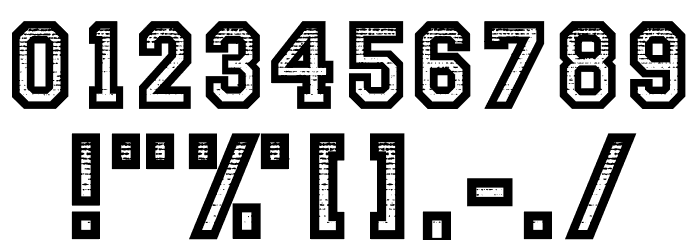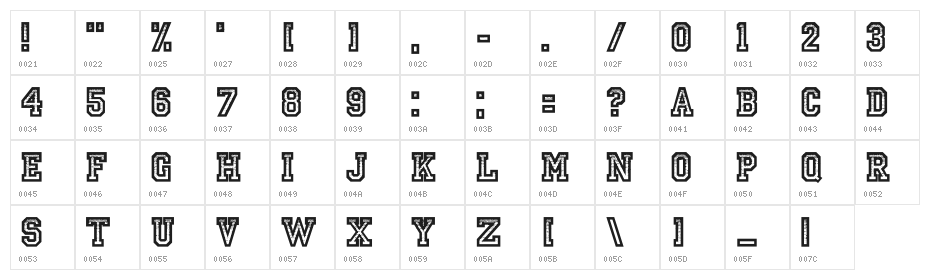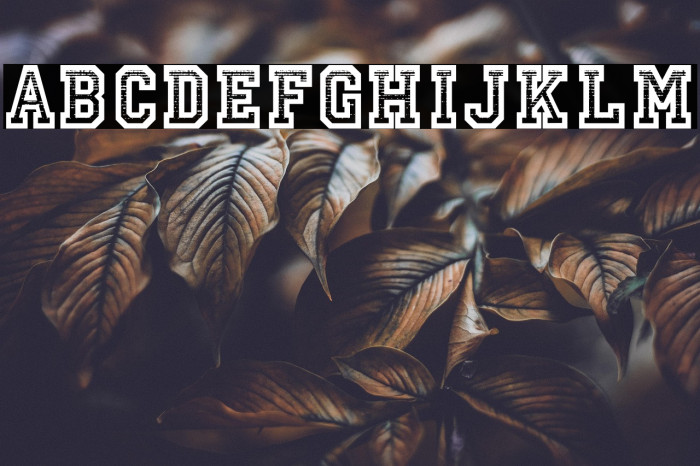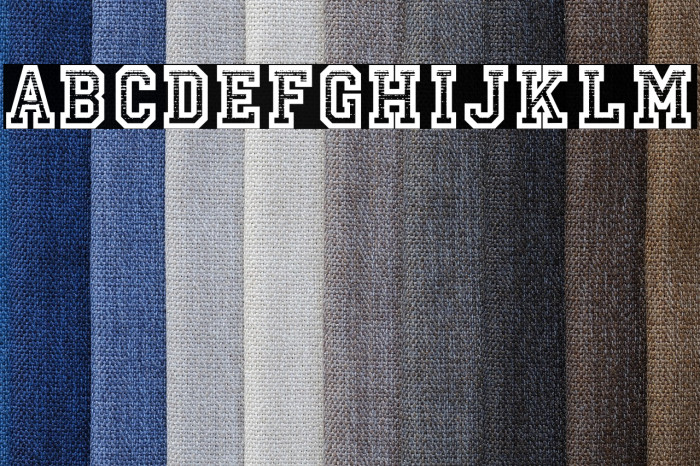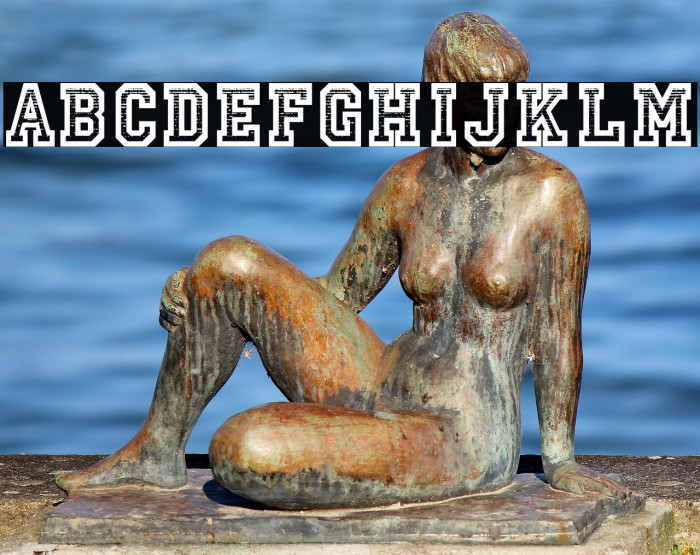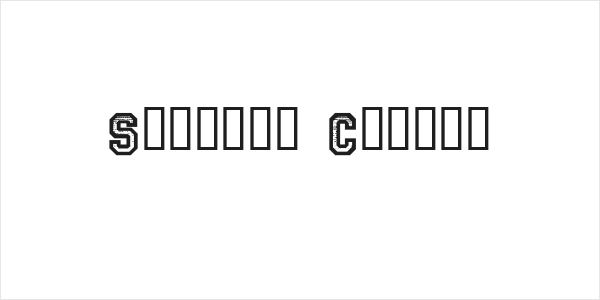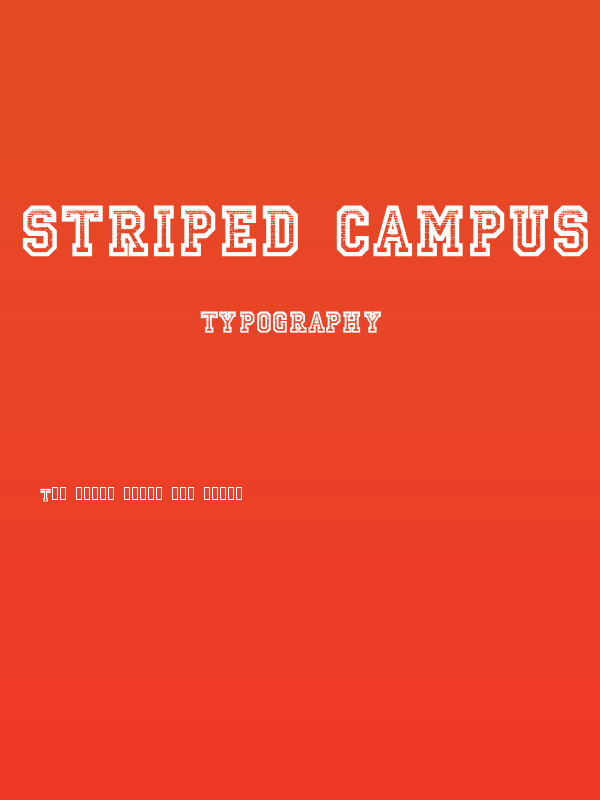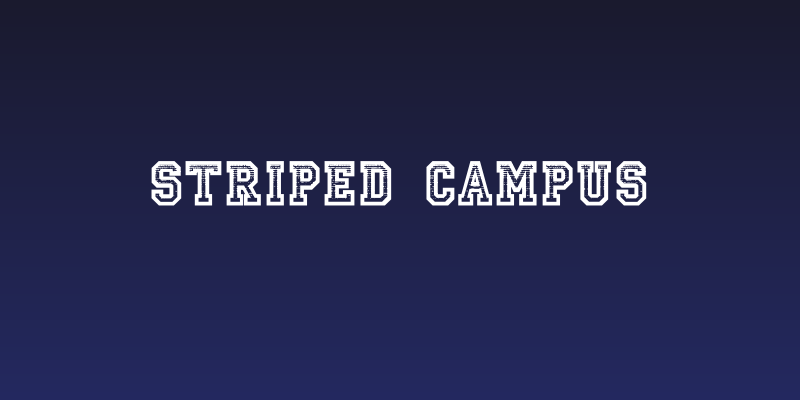
Striped Campus Font
Striped Campus Description
This font features a bold, collegiate style with a distinct striped pattern running through each character. The uppercase letters are prominent and commanding, reminiscent of traditional varsity or sports team lettering. The numbers and special characters maintain the same boldness and striped detailing, ensuring consistency across all elements. The font's design is both eye-catching and nostalgic, making it ideal for projects that require a strong, impactful visual presence. Its structured form and decorative elements lend it a unique charm that stands out in any design context.
| Proposed Projects | Ideal for sports team branding, school spirit merchandise, event posters, and retro-themed designs. |